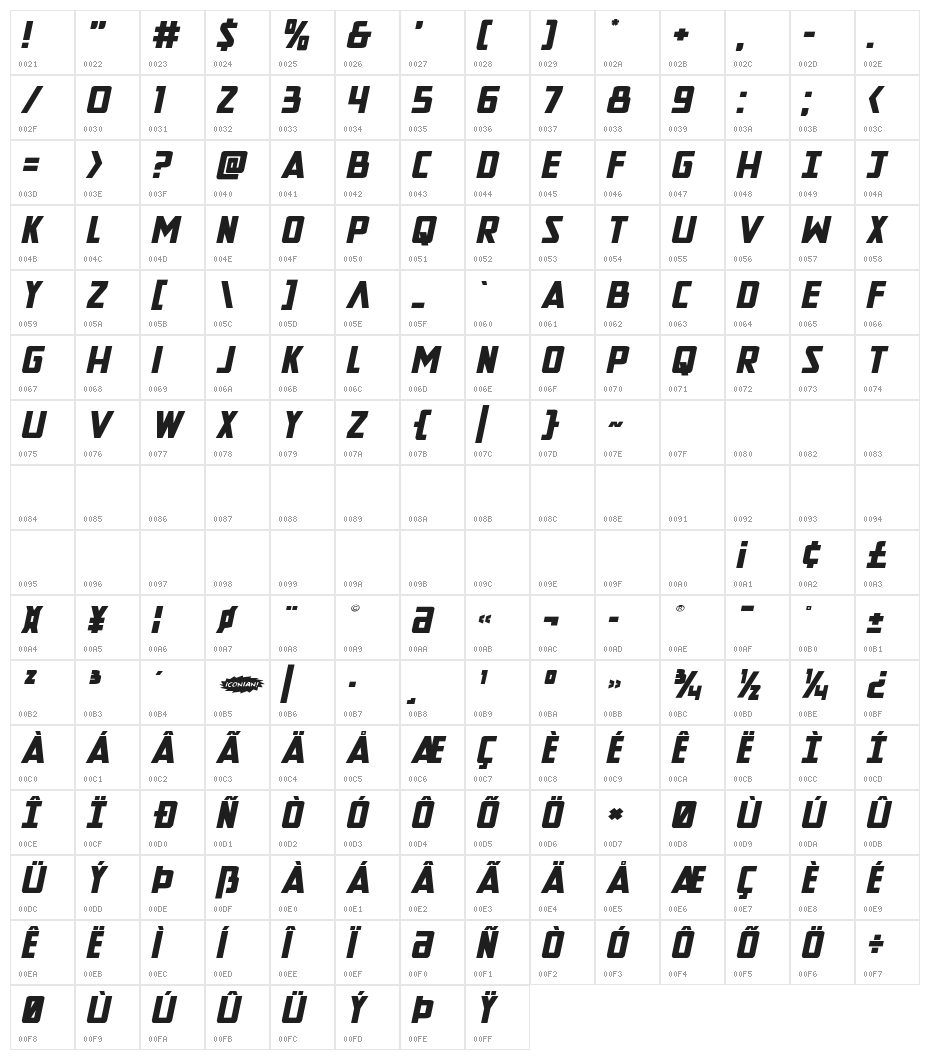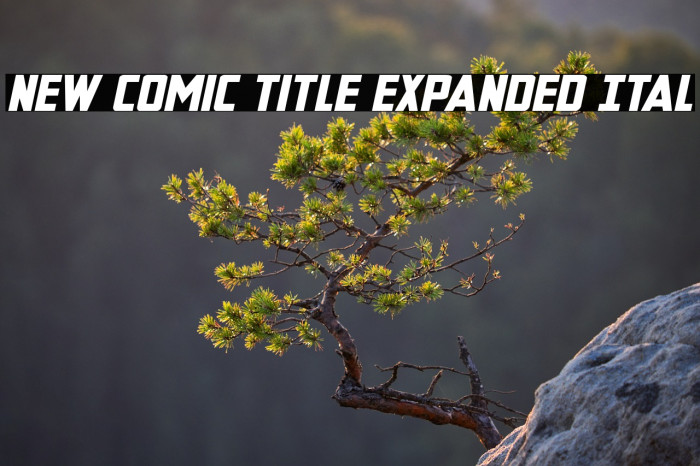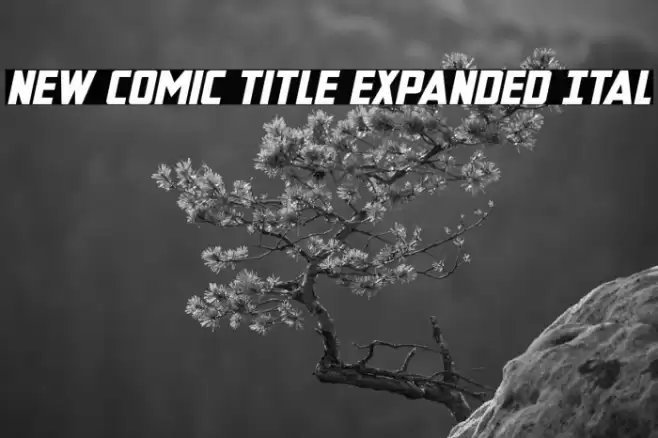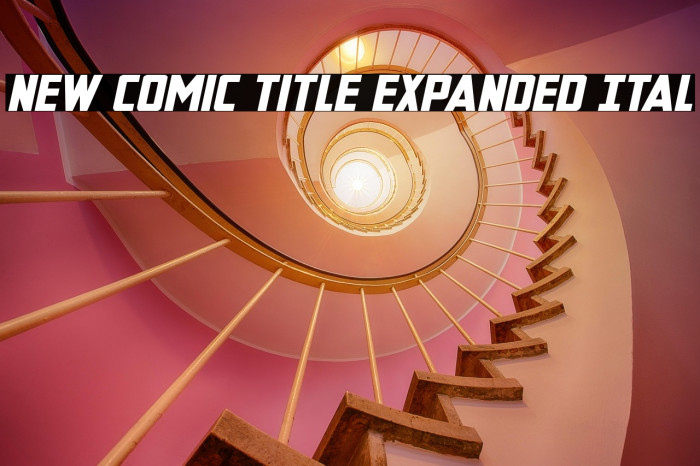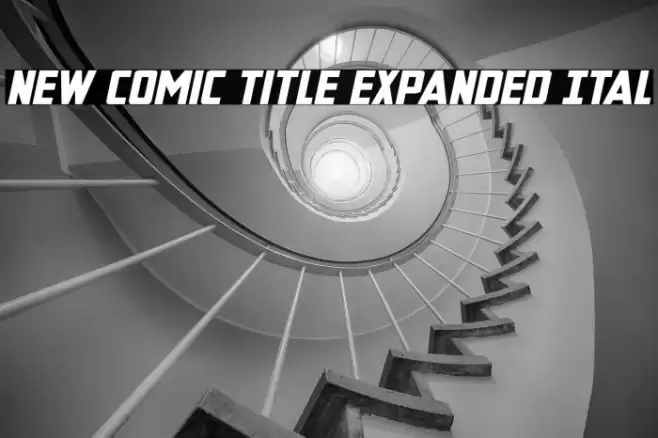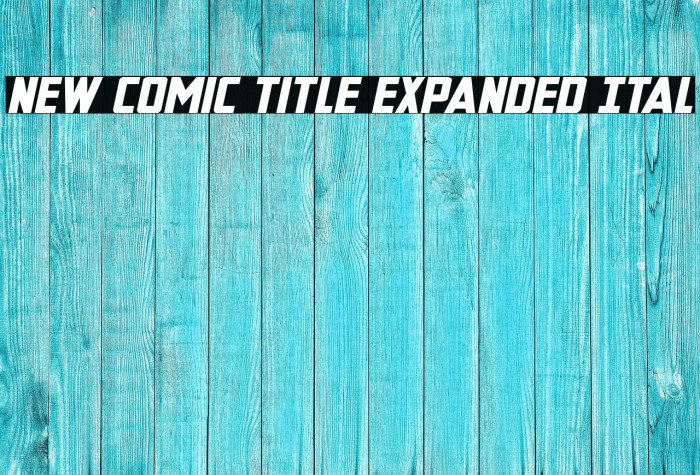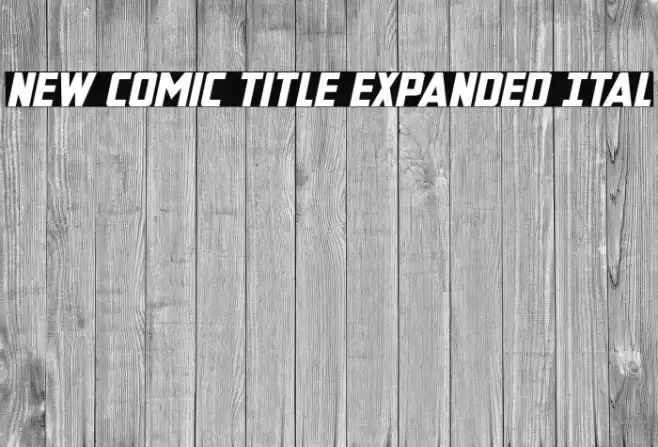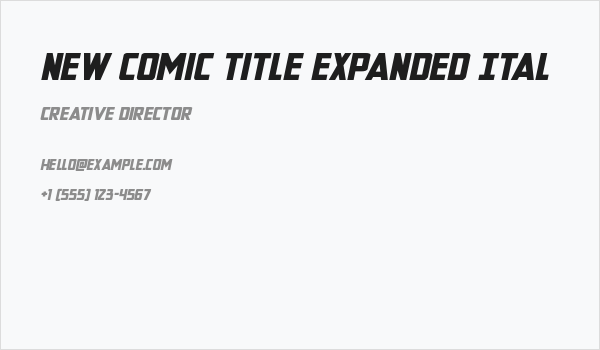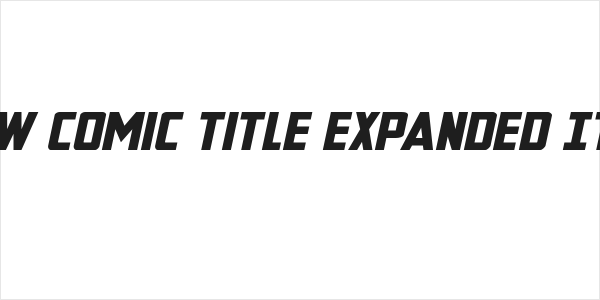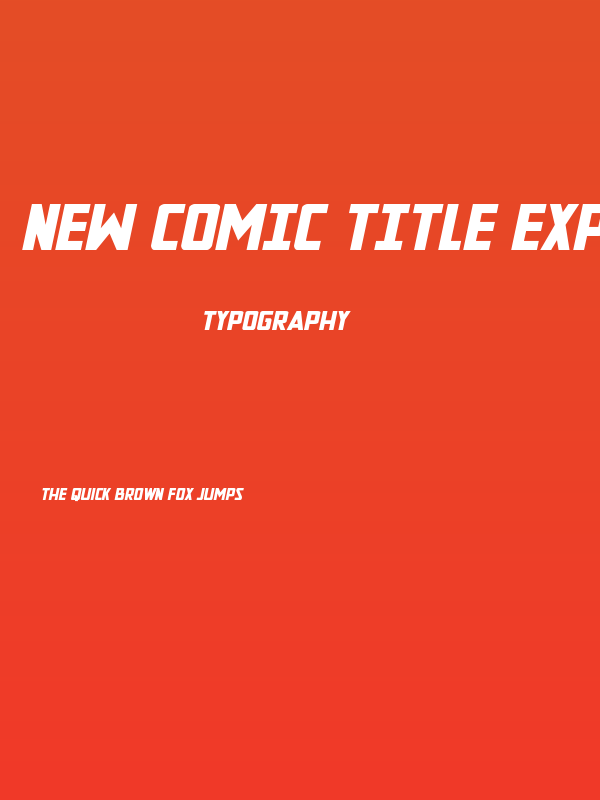
New Comic Title Expanded Ital Font
New Comic Title Expanded Ital Description
This font features a bold and dynamic style with an italicized slant, giving it a sense of motion and energy. The characters are expanded, providing a wide and impactful appearance. The strokes are consistent in thickness, contributing to a uniform and cohesive look. The uppercase and lowercase letters maintain a strong presence, making them suitable for attention-grabbing headlines. The numbers and special characters are designed to match the boldness of the alphabet, ensuring a harmonious overall design. This font is ideal for projects that require a modern and assertive aesthetic.
| Proposed Projects | Ideal for comic book titles, posters, advertising, and branding materials that need a strong and energetic look. |